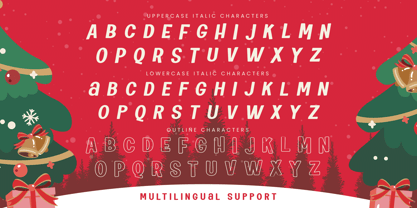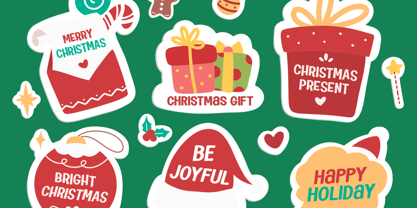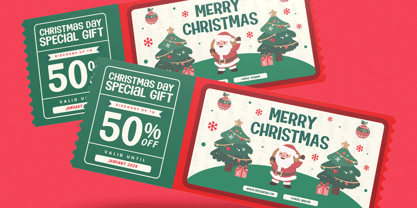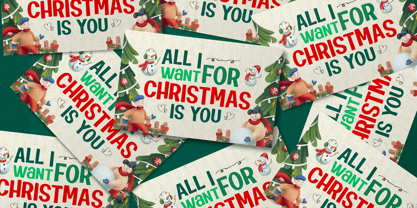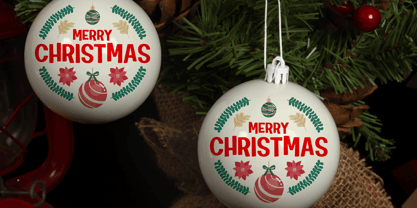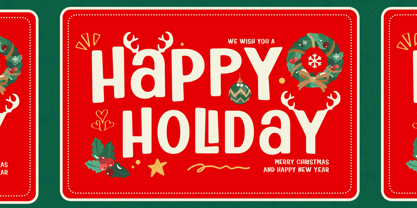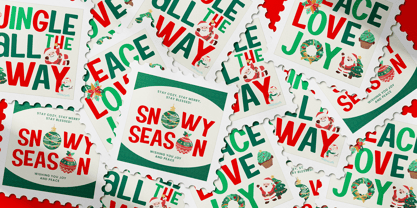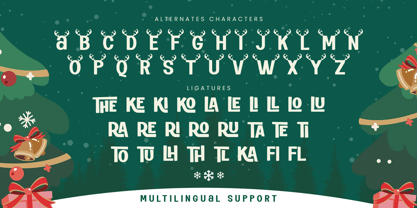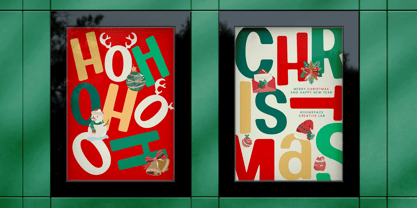
Sparkla
by Jafar07
The Sparkla Font Family was designed by Bakhrudin Ja'far and published by Jafar07. Sparkla contains 3 styles and family package options. More about this family
A playful holiday-themed display font designed for cheerful seasonal expression. Sparkla is a festive display typeface crafted for holiday branding and expressive seasonal design. Featuring rounded playful forms and decorative Christmas personality, Sparkla delivers warmth and joyful character suitable for greeting cards, posters, packaging, and children’s materials. Its bold letterforms ensure strong readability while maintaining a fun and celebratory visual tone ideal for both print and digital environments during the holiday season. Specifications: Style: Decorative Display Character Set: Uppercase, lowercase, punctuation Language Support: Western European Use Case: Holiday branding, children’s designs, posters, packaging, retail promotions
Designers: Bakhrudin Ja'far
Foundry: Jafar07